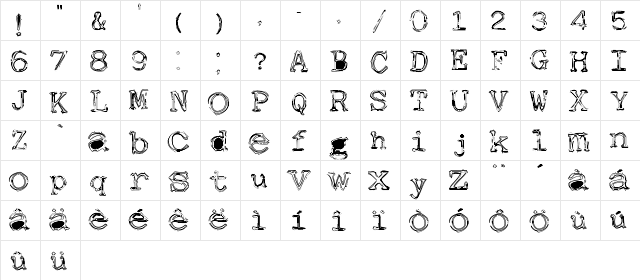
NonLinear Regular
| Foundry | \ Fabrizio Gilardino for Rebels/ dist. by mindCANDY |
Design Context for NonLinear Typeface
NonLinear is a composed and adaptable typeface that performs quietly and consistently across a wide range of design contexts.